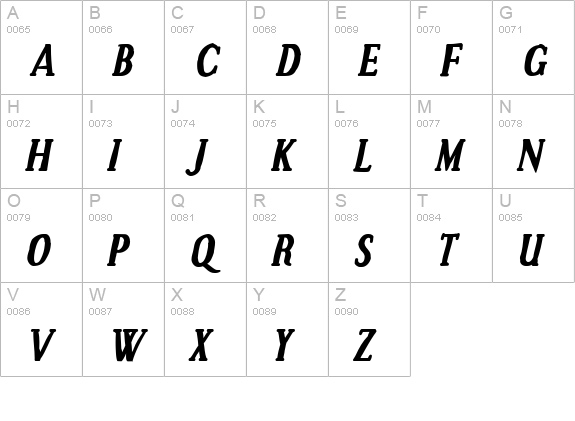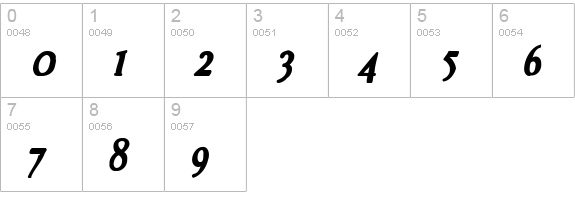
Effloresce Ink Italic is a distinctive, italic variant in the Effloresce typeface family \xE2\x80\x94 well suited to design and typography projects.
Effloresce Ink Italic is a stunning and elegant font that exudes a sense of sophistication and creativity. Its delicate curves and flowing lines give off a sense of artistic flair, making it perfect for projects that require a touch of elegance and charm. The italic style adds a touch of dynamism to the font, making it stand out beautifully in any design. What sets Effloresce Ink Italic apart is not just its exquisite design, but also the fact that it is available for free download at FontsMarket.com. This means that you can easily access this beautiful font without any cost, making it a valuable addition to your font collection. Whether you're working on invitations, branding materials, or any other project that requires a touch of sophistication, Effloresce Ink Italic is sure to elevate your design to the next level. Download it for free today and unleash your creativity with this stunning font.